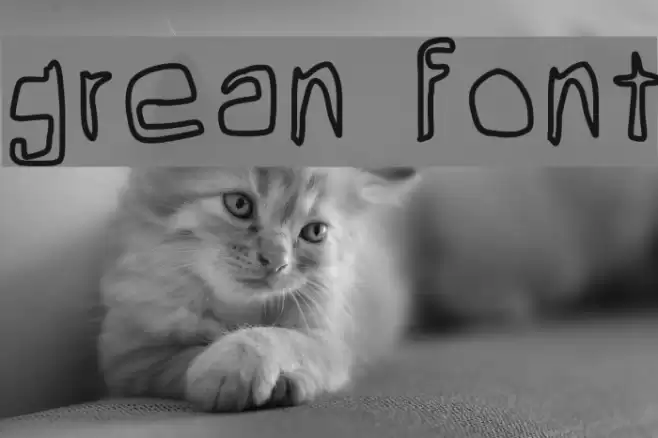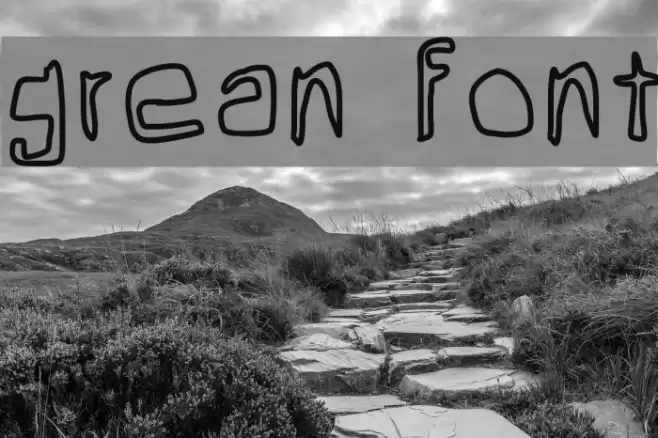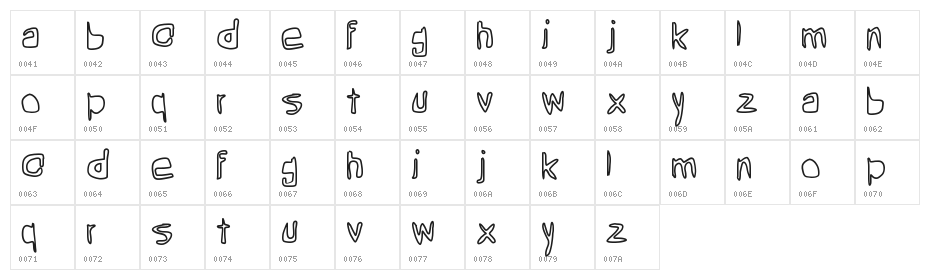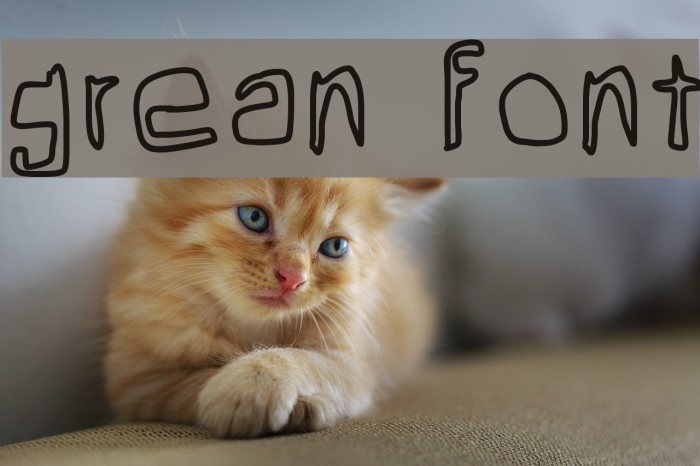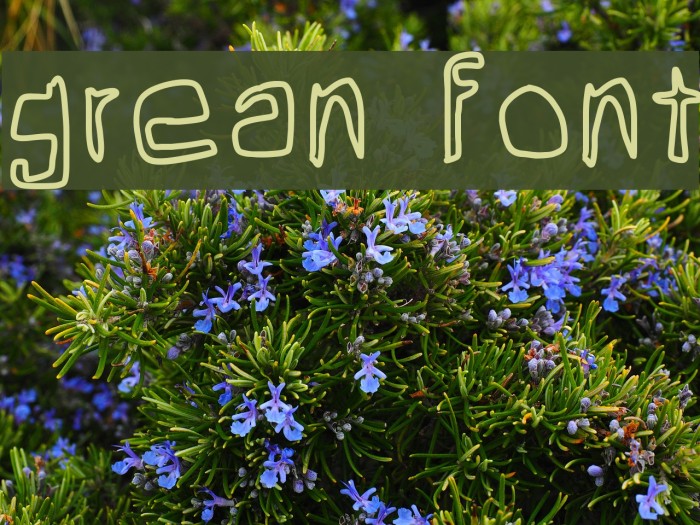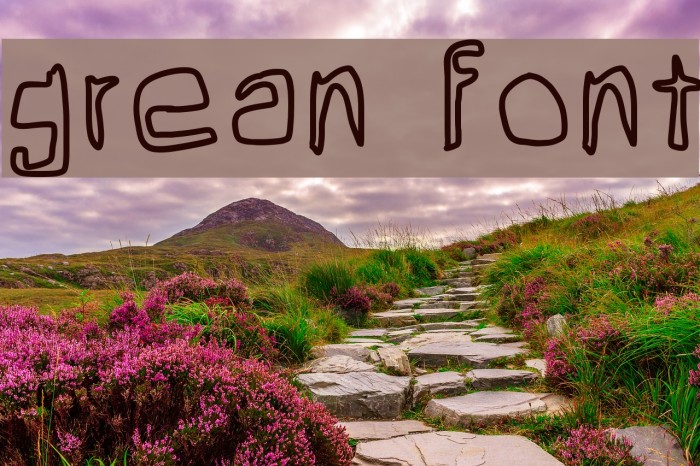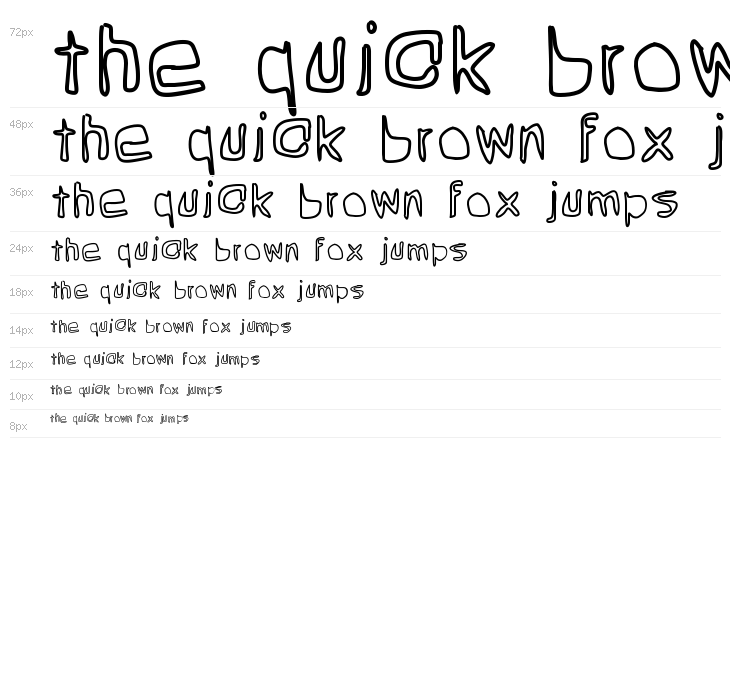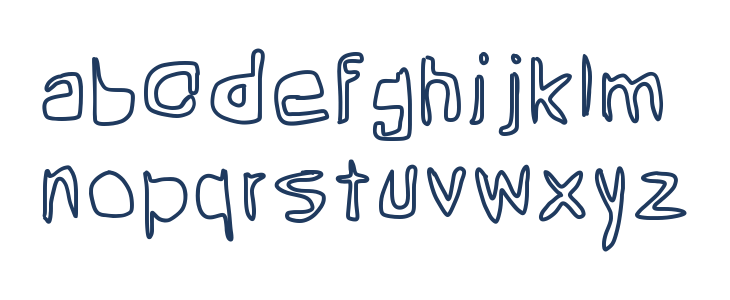
grean Font
grean Description
This font features a playful and quirky design with a hand-drawn aesthetic. Each character is outlined with a bold, uneven stroke, giving it a casual and informal appearance. The letters have a slightly irregular shape, adding to the whimsical feel. The uppercase and lowercase letters maintain a consistent style, with rounded edges and a sense of movement. The numbers and special characters follow the same design principles, ensuring a cohesive look across all glyphs. This font is ideal for projects that require a fun and approachable vibe.
A playful, hand-drawn font with bold outlines and a whimsical style from Cartoon fonts.
- Proposed Projects: Ideal for children's books, playful branding, casual invitations, and creative posters.
- Overall Style: Playful, Whimsical